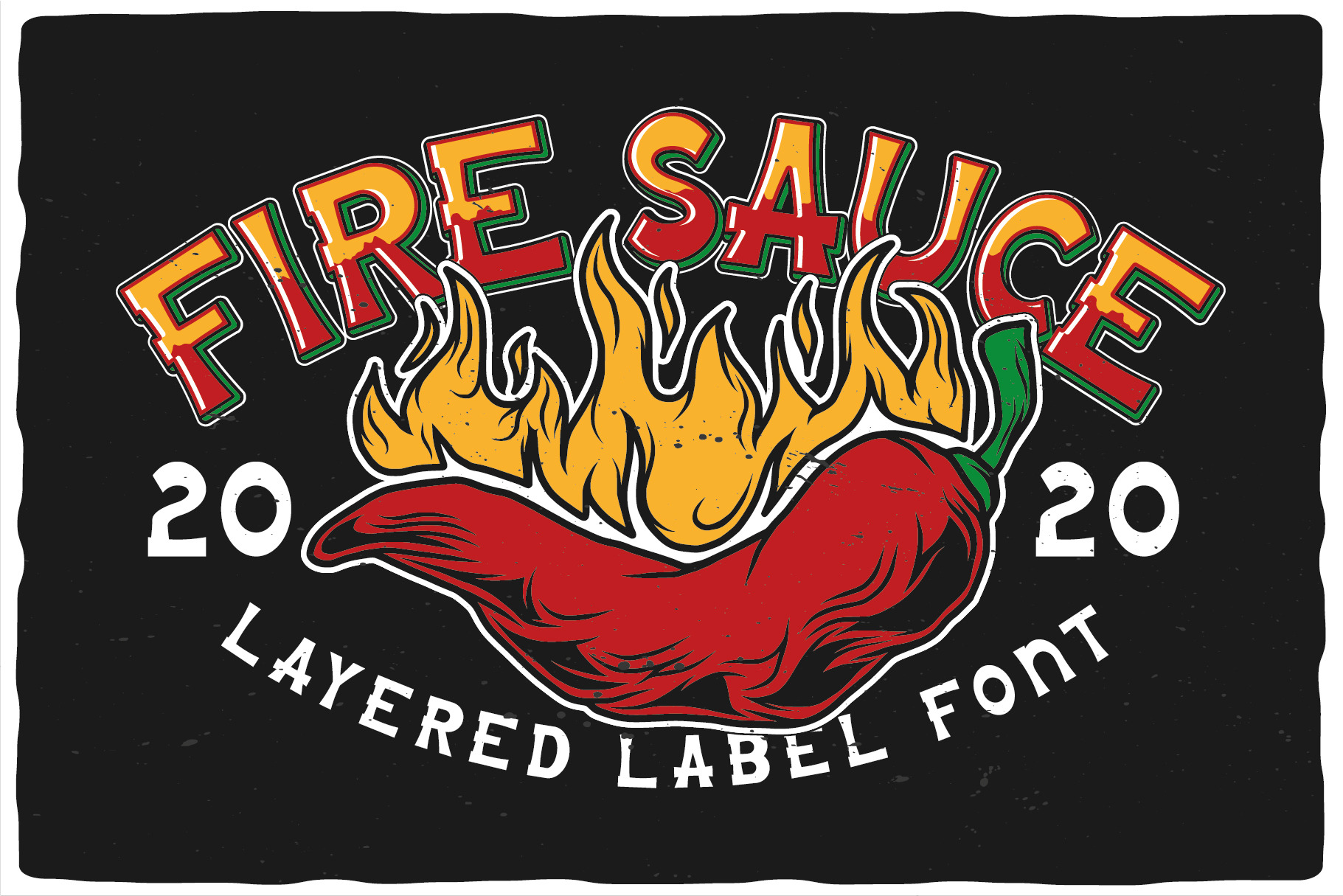
Fire Sauce Layered Font
Introducing a vintage look label font named "Fire Sauce".Typeface includes six styles - Base, Rough, Outline, Fill, Shadow and Shine. This font will good viewed on any retro design like poster, t-shirt, label, logo etc.